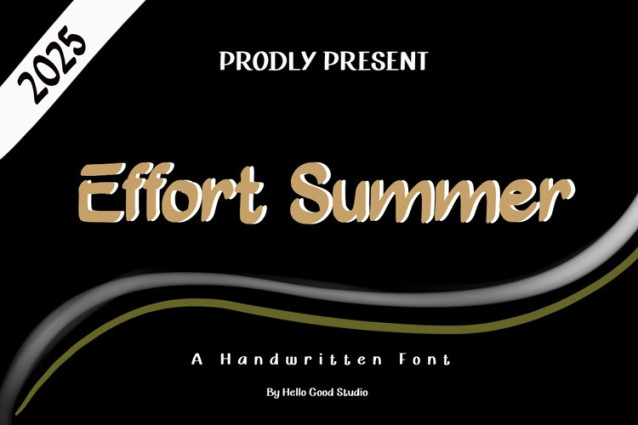
Effort Summer Font
Effort Summer Font is a chunky, comic, and cartoon display font. With its neat and joyful personality, this font will enhance any project you wish to create!